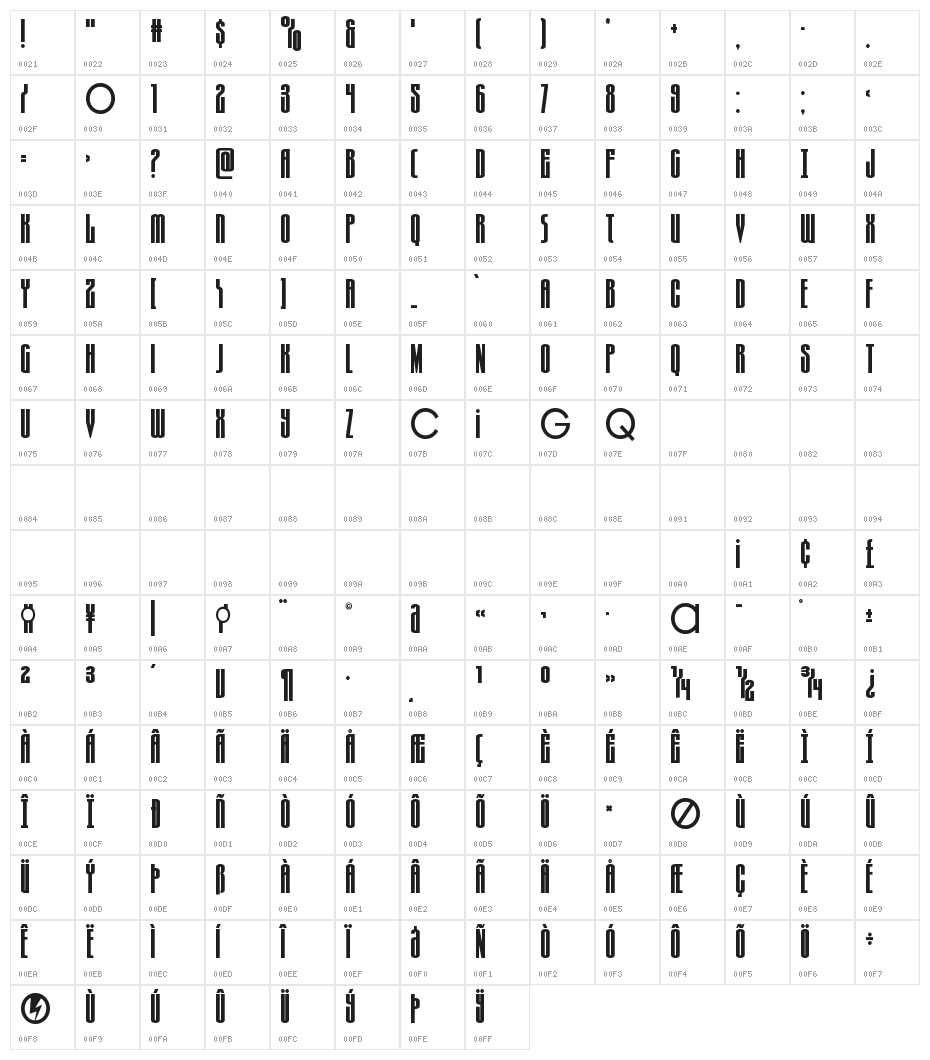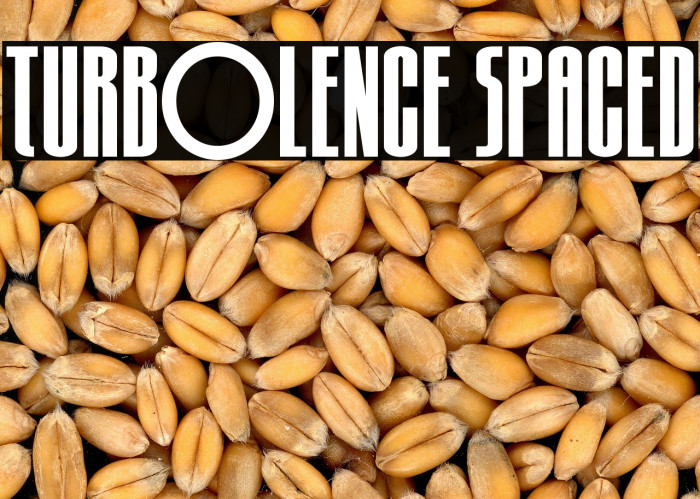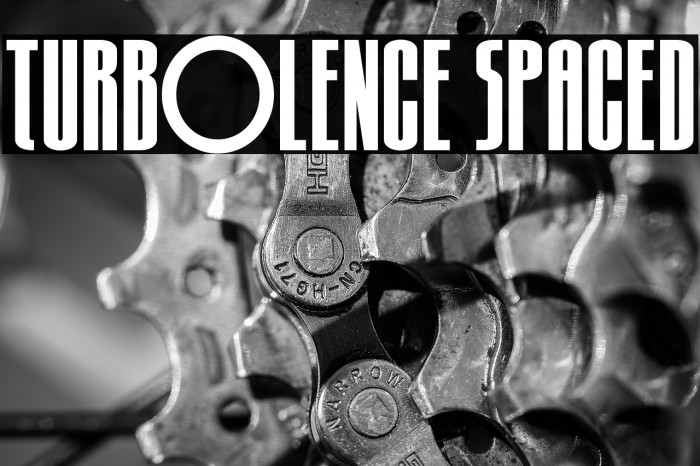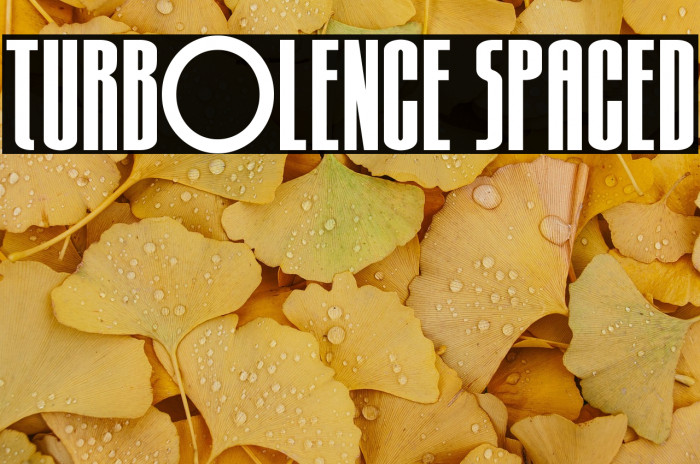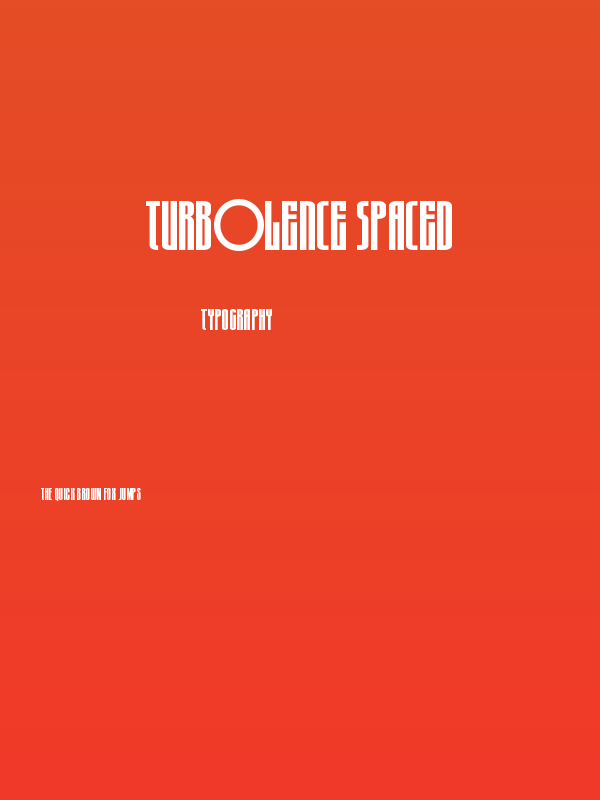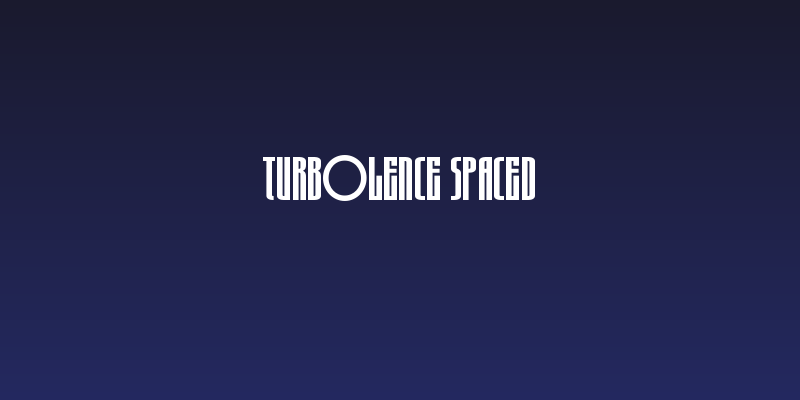
Turb0lence Spaced Font
Turb0lence Spaced Description
This font features a bold and striking design with tall, narrow characters that create a strong visual impact. The uppercase letters are particularly elongated, giving the font a modern and dynamic appearance. The strokes are consistent in width, contributing to a uniform and cohesive look. The numbers and special characters maintain the same boldness and height, ensuring a balanced aesthetic across all elements. The font's geometric style and high contrast make it ideal for attention-grabbing headlines and display purposes.
| Proposed Projects | Ideal for use in posters, headlines, branding, and any project requiring a strong visual impact. |